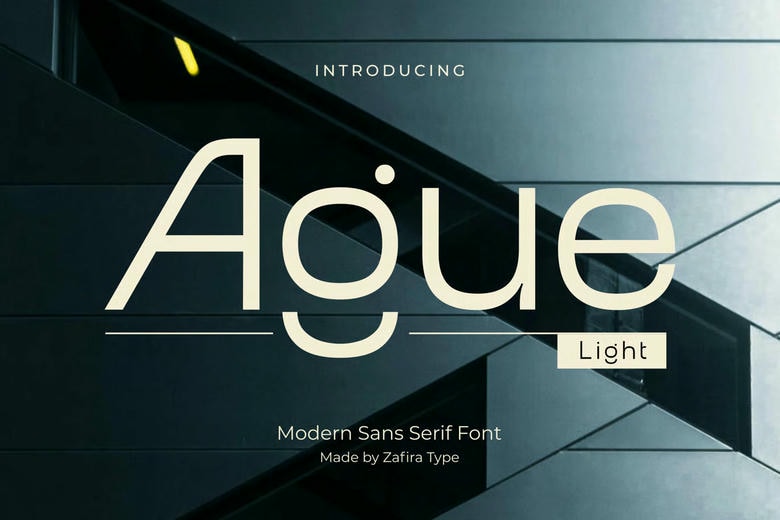
Ague Light Font
Ague Light is a modern sans-serif typeface created to be simple and elegant. Its light, refined look works well for today’s design projects.
Ague Light’s balanced proportions, sharp lines, and minimalist style make it a great choice for branding, editorial layouts, UI/UX design, and presentations. It brings clarity and a modern feel to both print and digital projects.
Ague Light Sans Serif Font